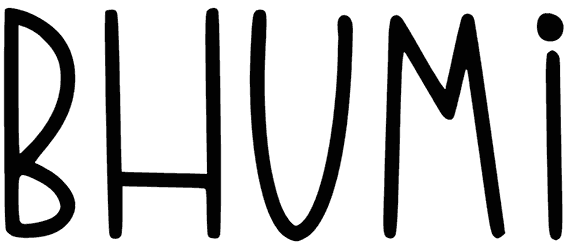
Bhumi Font
Bhumi is one of the most accessible script fonts for designing general text and body titles in comic books, children’s animations, and comedy sketches. This scrapbook font has a very accessible and playful look that can release the spirit of joy and excitement in your writing.
That’s why the designers ignored the absence of small letters in this font and used its soft curves to create a subtle personal touch without connecting the letters.